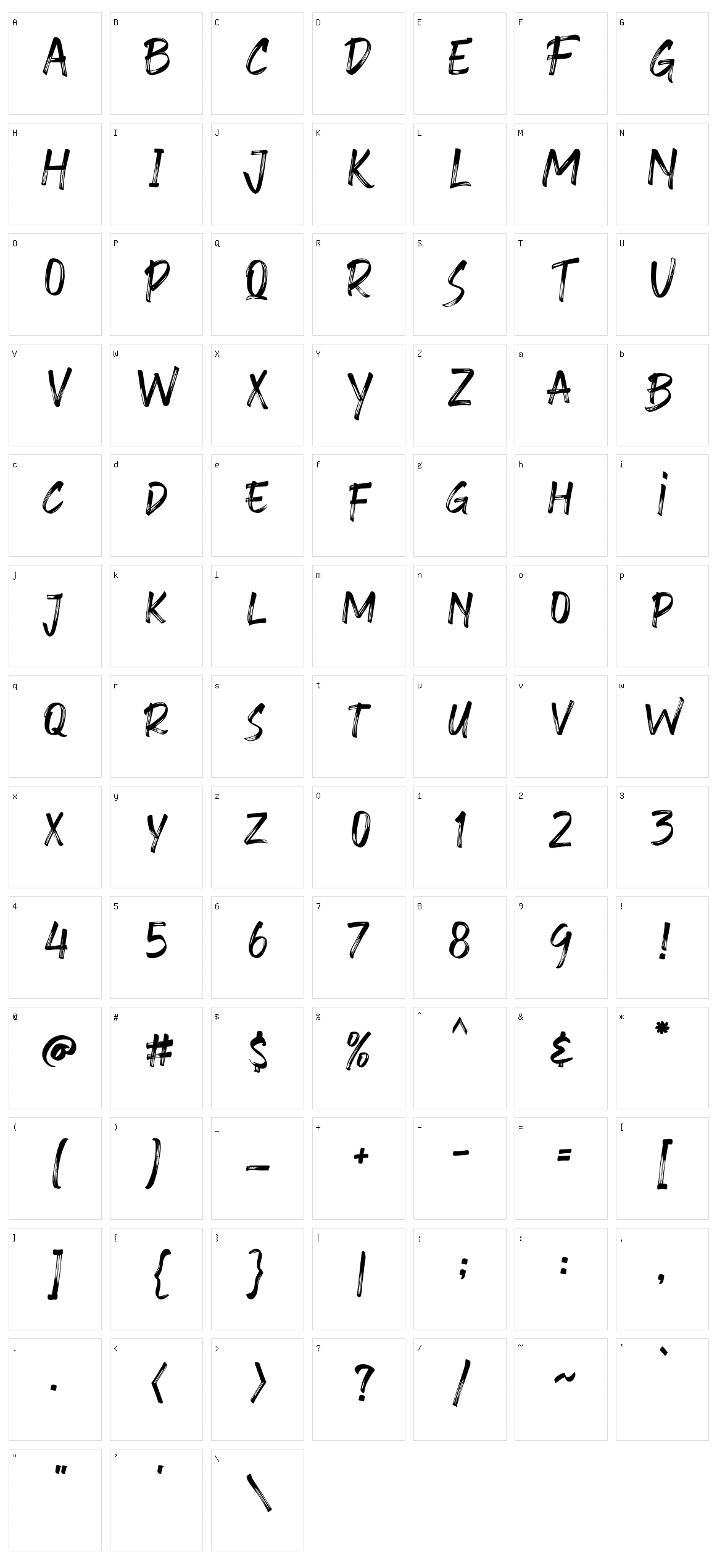
The free font Slouchy Brush is carefully designed by 50Fox Studio, showcasing a thoughtful balance of creativity and usability and falls under the Script font style. When you download the ZIP file, it contains only 92.51 KB of font files, making it lightweight and quick to download. Please review the license details below to understand permitted usage and distribution rights. If license information is not available, we recommend using this font for personal projects only or contacting the author directly for commercial usage permissions.